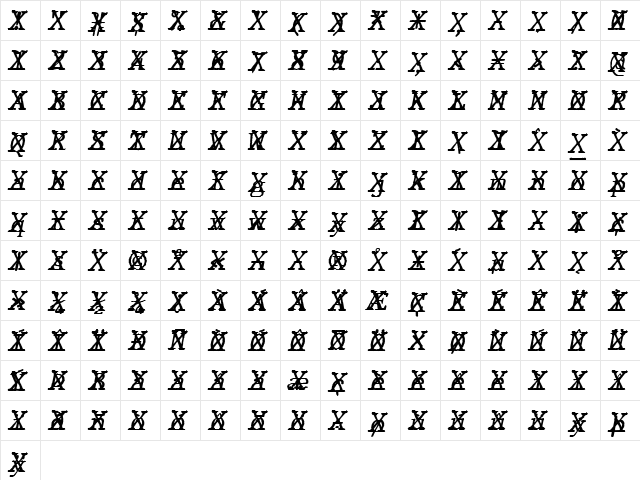
JMH Typewriter mono Cross Italic
Design Context for JMH Typewriter mono Cross Typeface
JMH Typewriter mono Cross brings the precise, column-aligned rhythm of monospaced typography to designs that value technical clarity and systematic order. Its italic angle brings a sense of urgency and motion to the letterforms.
A natural fit for code editors, technical documentation, developer-focused branding, and terminal-inspired UI.
Pro Tip: Pair JMH Typewriter mono Cross with a proportional sans for UI contexts where code-style labels and regular body copy need to coexist.